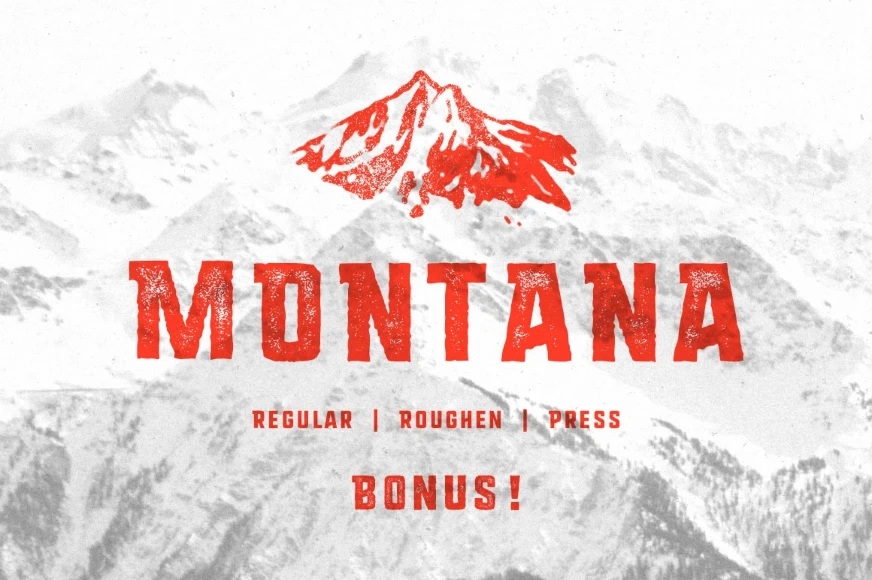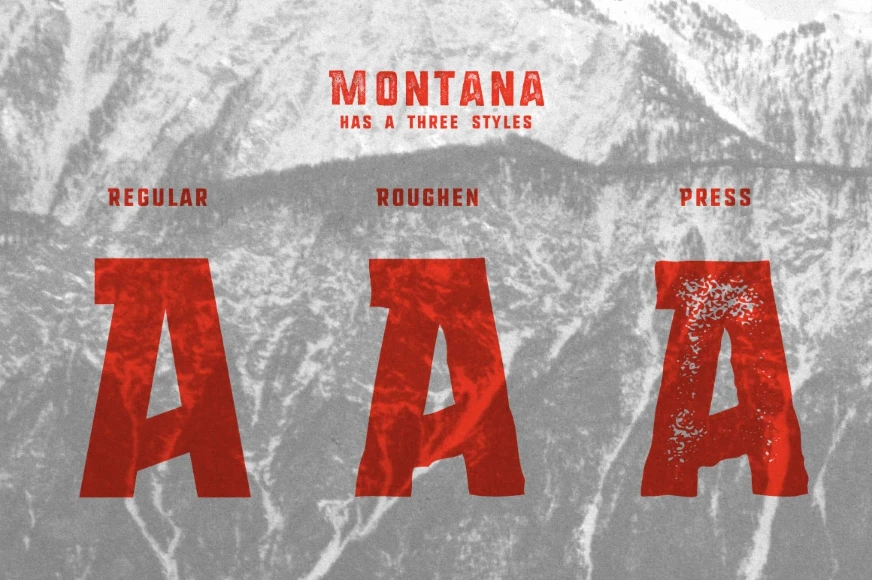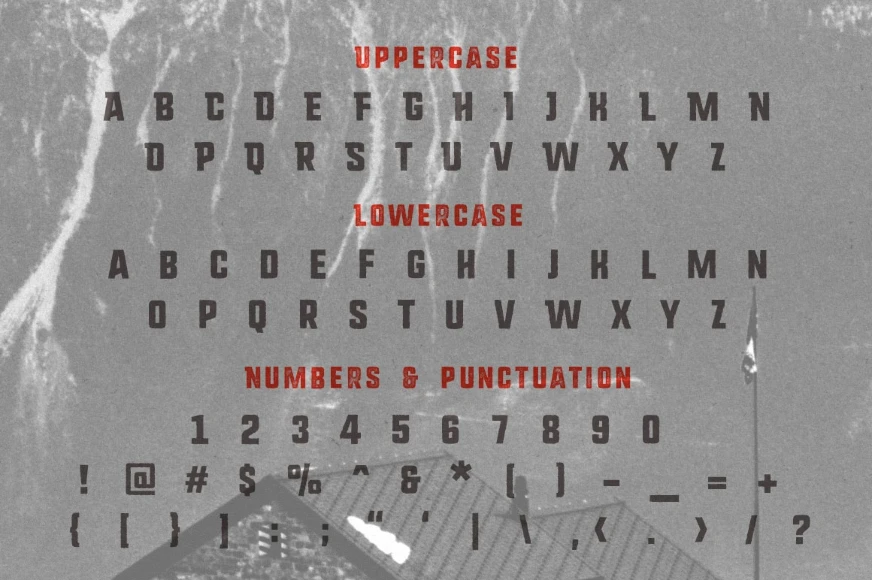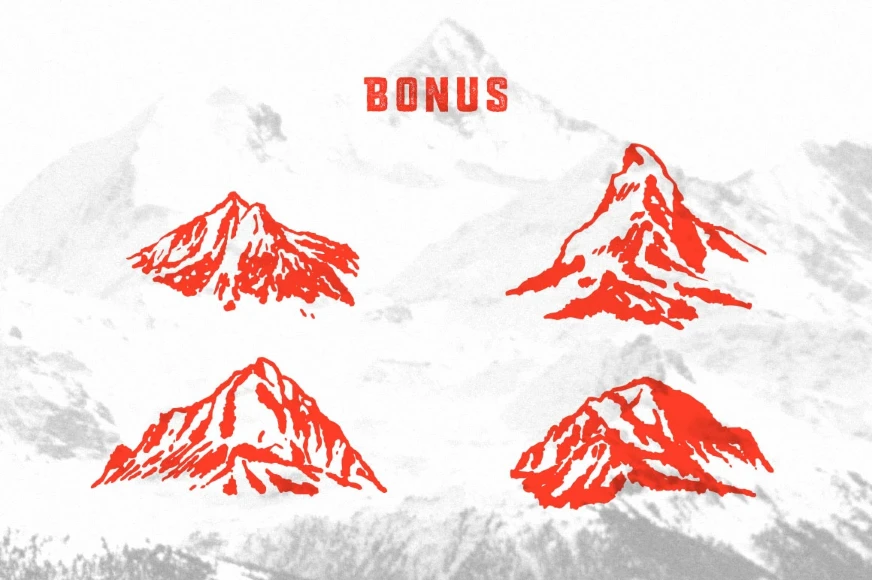
Montana
Montana Regular
Montana Rough
Montana is a simple sans-serif font family with a rugged, handcrafted feel. Features roughened and pressed effects for a natural, textured look. Designed to suit a wide range of creative projects, including prints, logos, cards, business materials, and interior design elements. Inspired by the spirit of the mountains, this display font brings a grounded, outdoorsy vibe to any design. Built for those who appreciate clean lines with a touch of character.